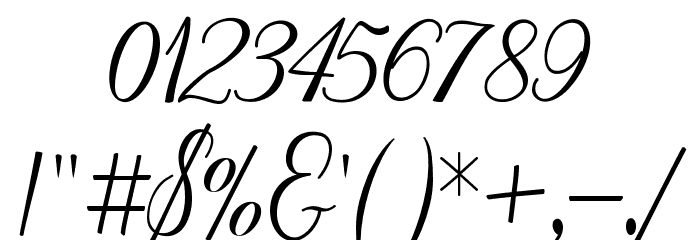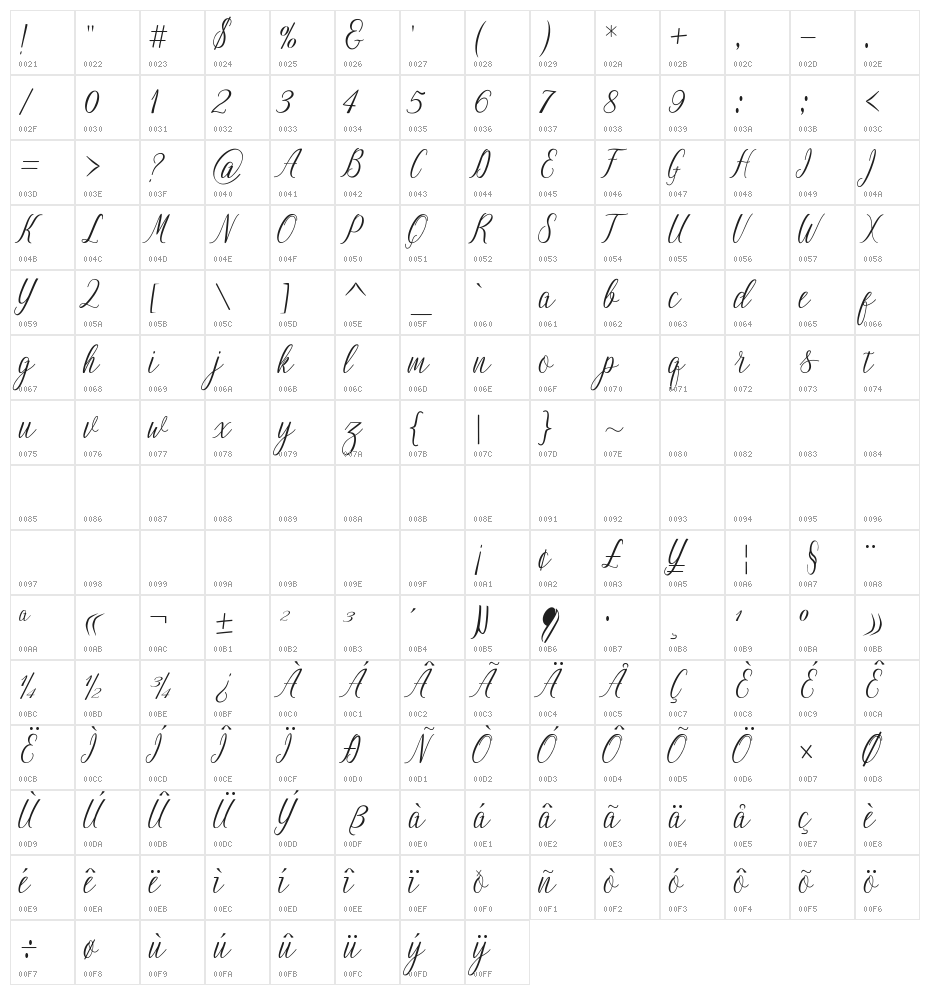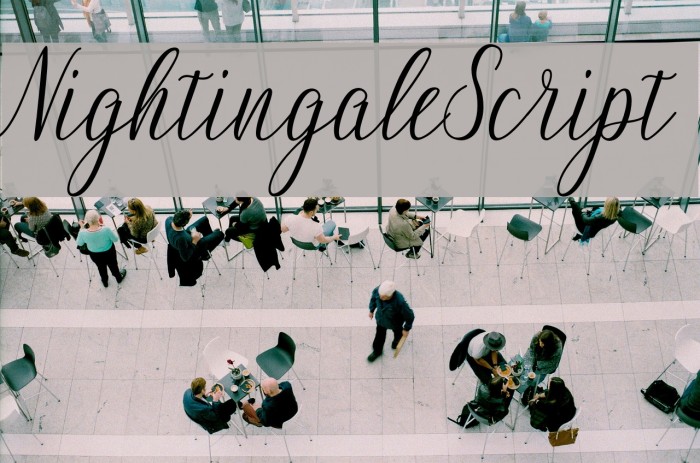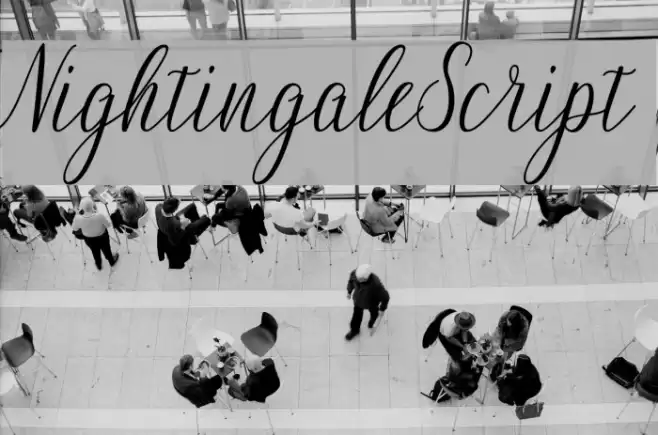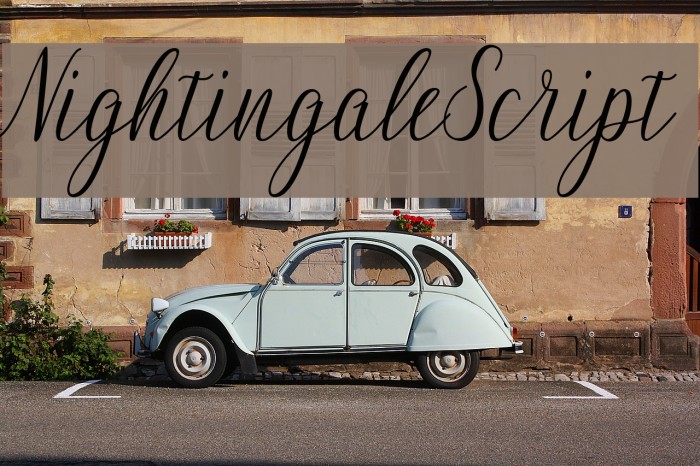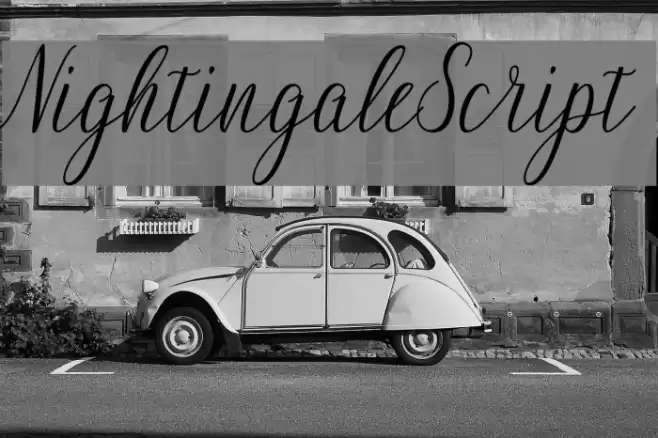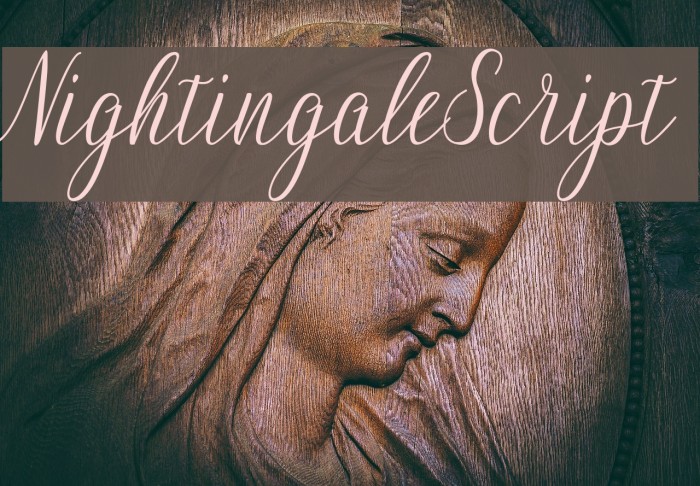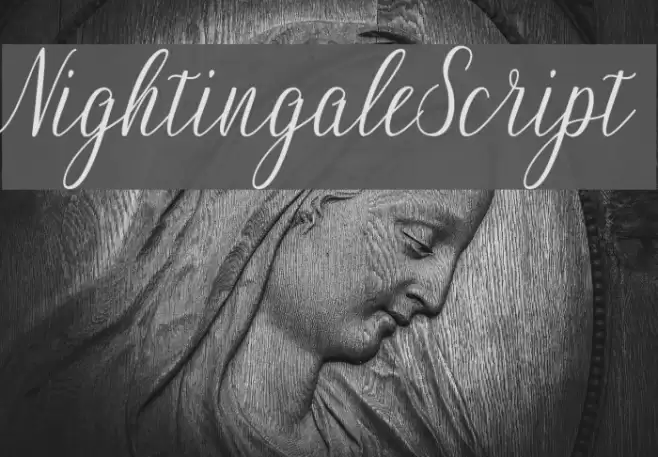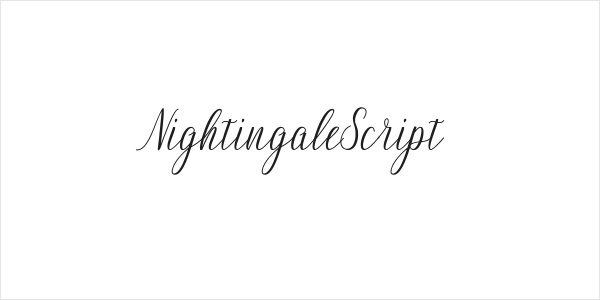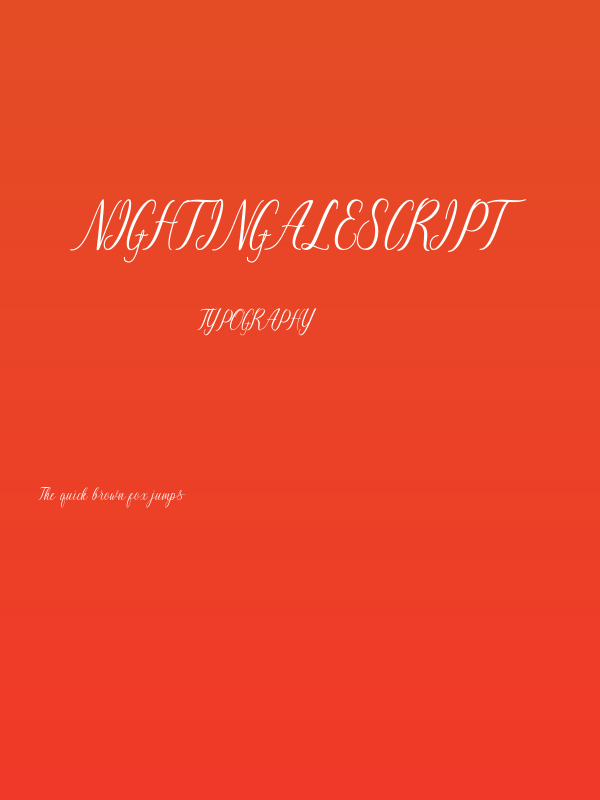
NightingaleScript Font
NightingaleScript Description
This elegant script font features flowing, cursive letters with a refined and sophisticated appearance. The characters are connected, creating a seamless and fluid look that is both graceful and stylish. The uppercase letters are tall and slender, while the lowercase letters maintain a consistent flow, enhancing the overall aesthetic. The numerals are designed to match the script style, with curves and loops that complement the letters. Special characters are included, maintaining the same elegant style. This font is perfect for projects that require a touch of elegance and sophistication.
| Proposed Projects | Ideal for wedding invitations, elegant branding, greeting cards, and high-end product packaging. |